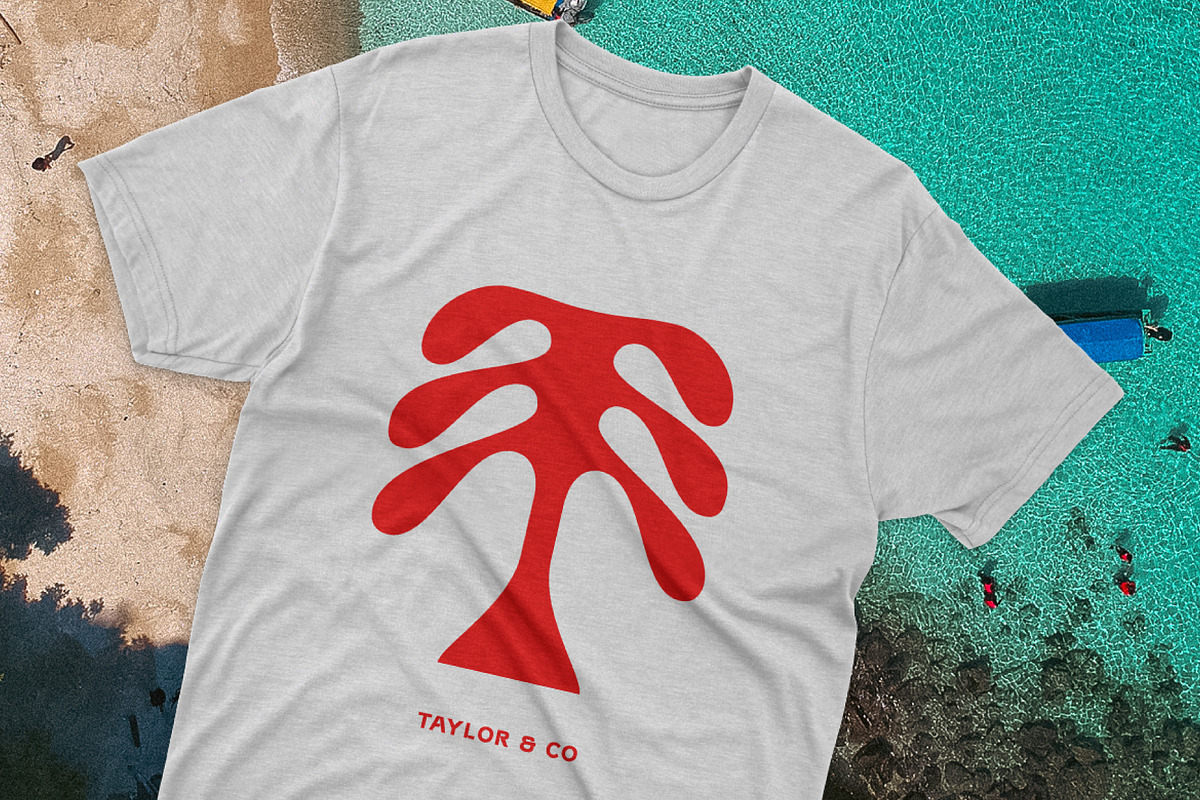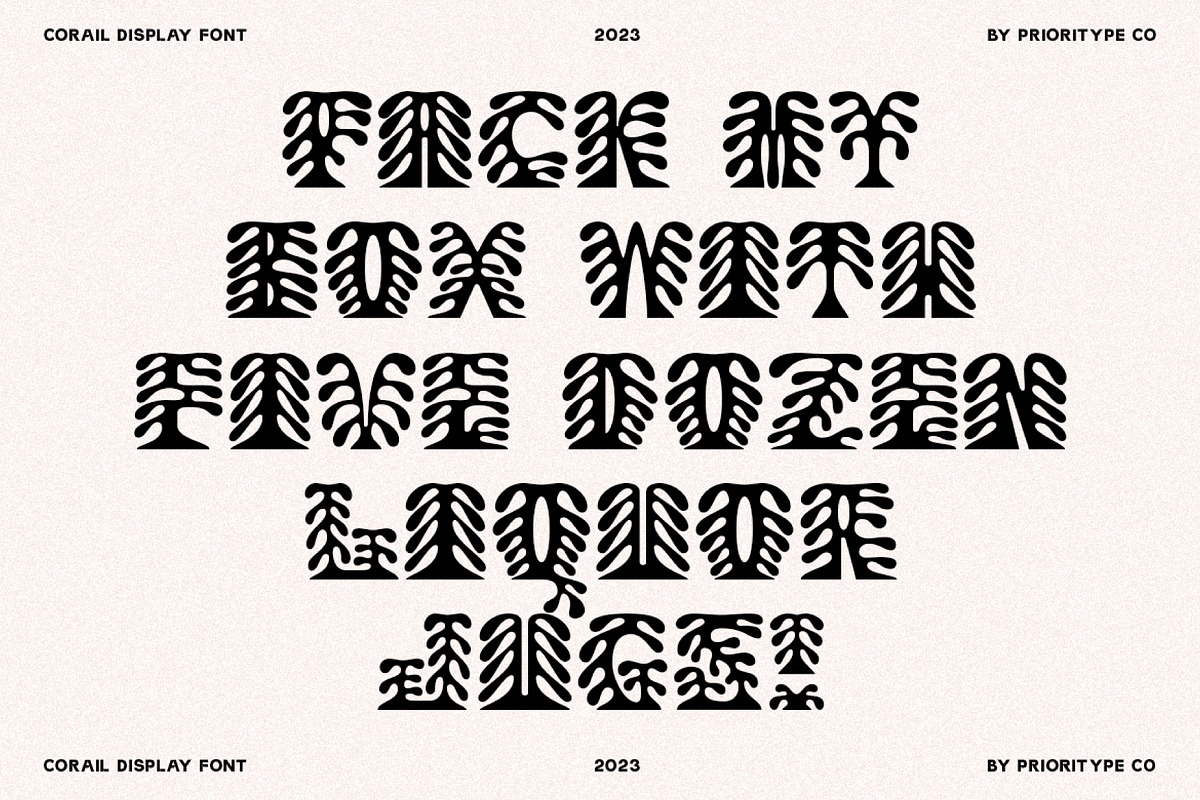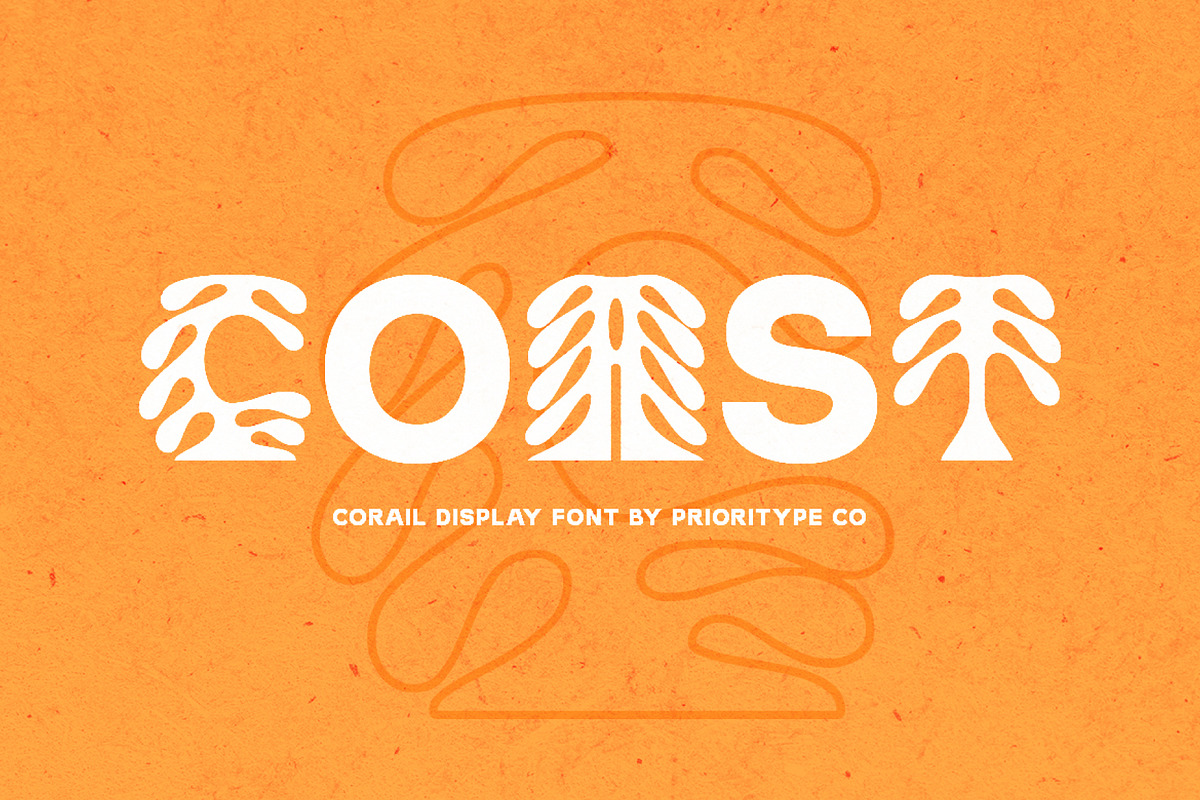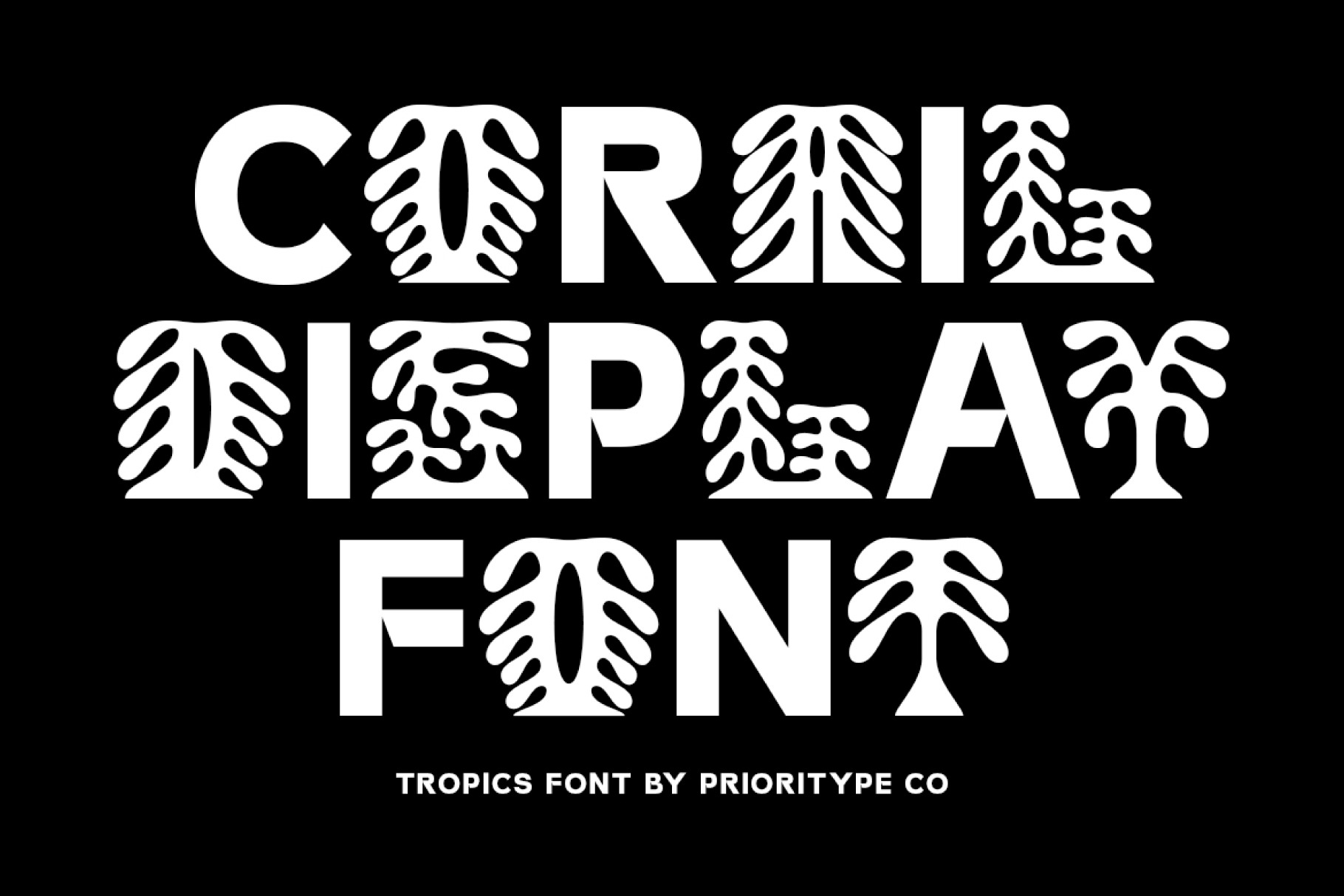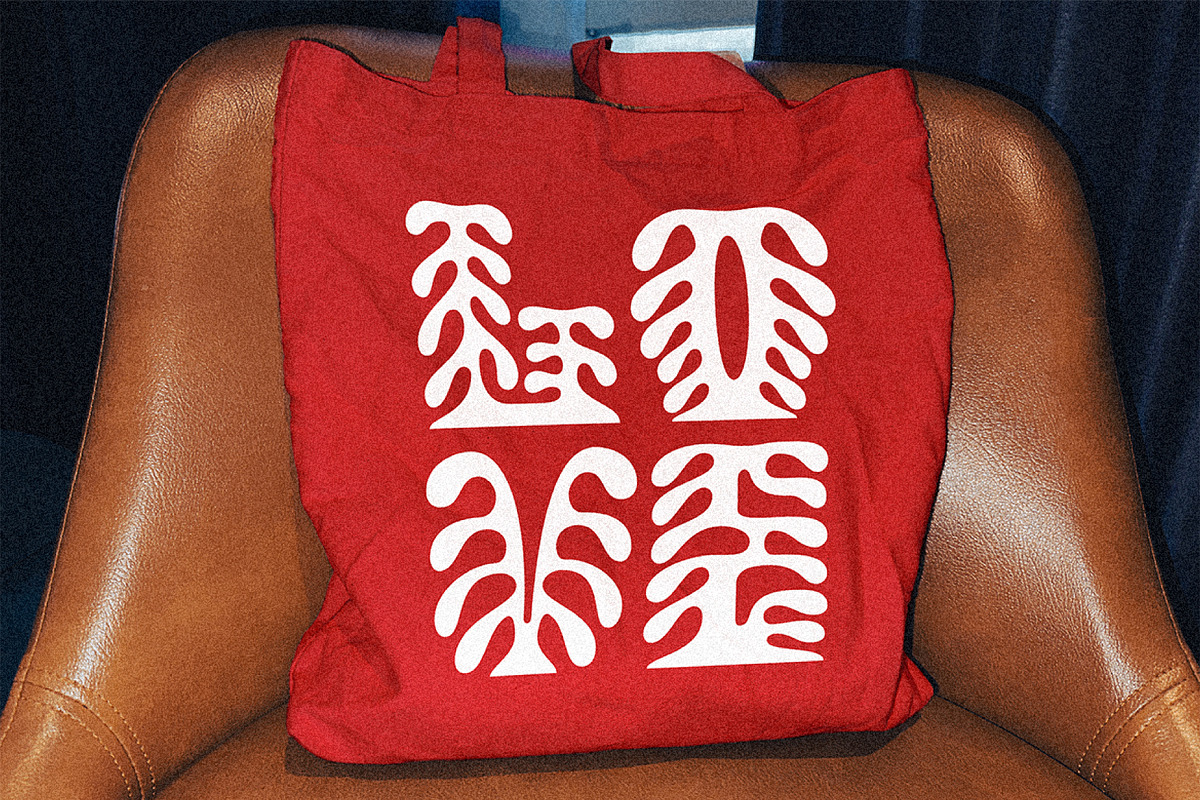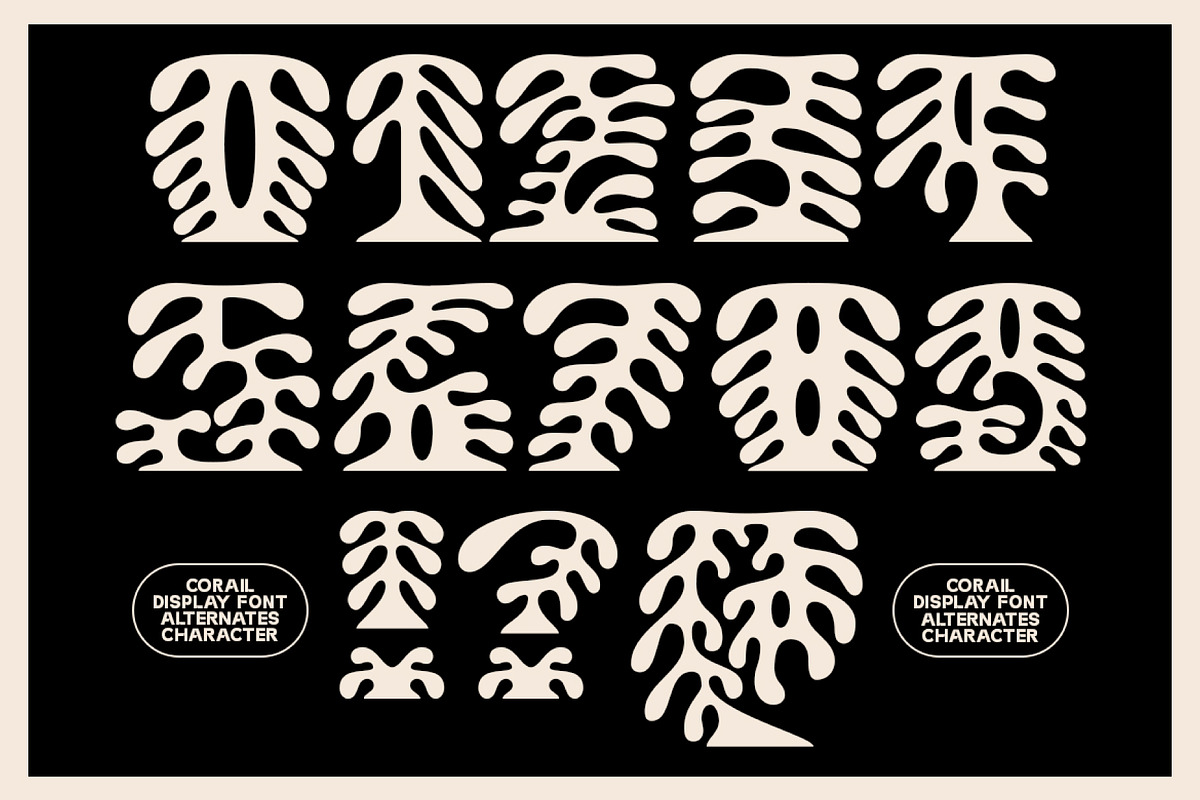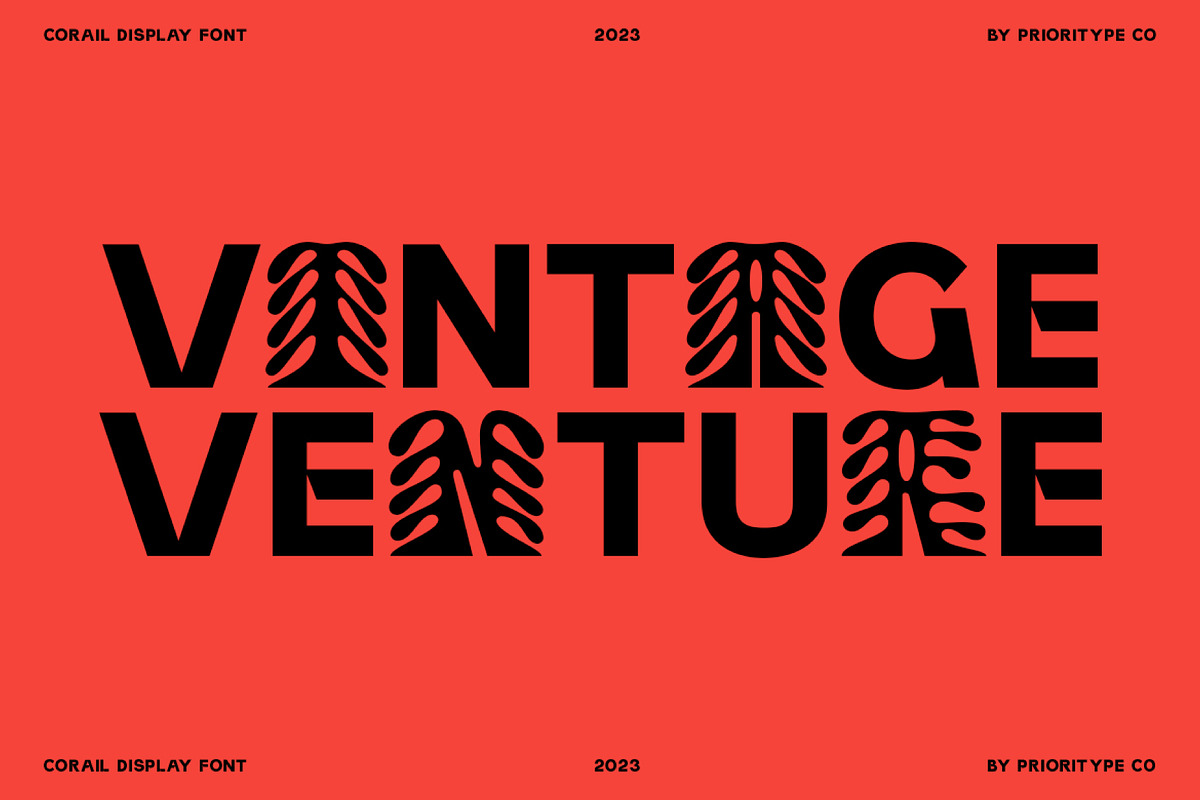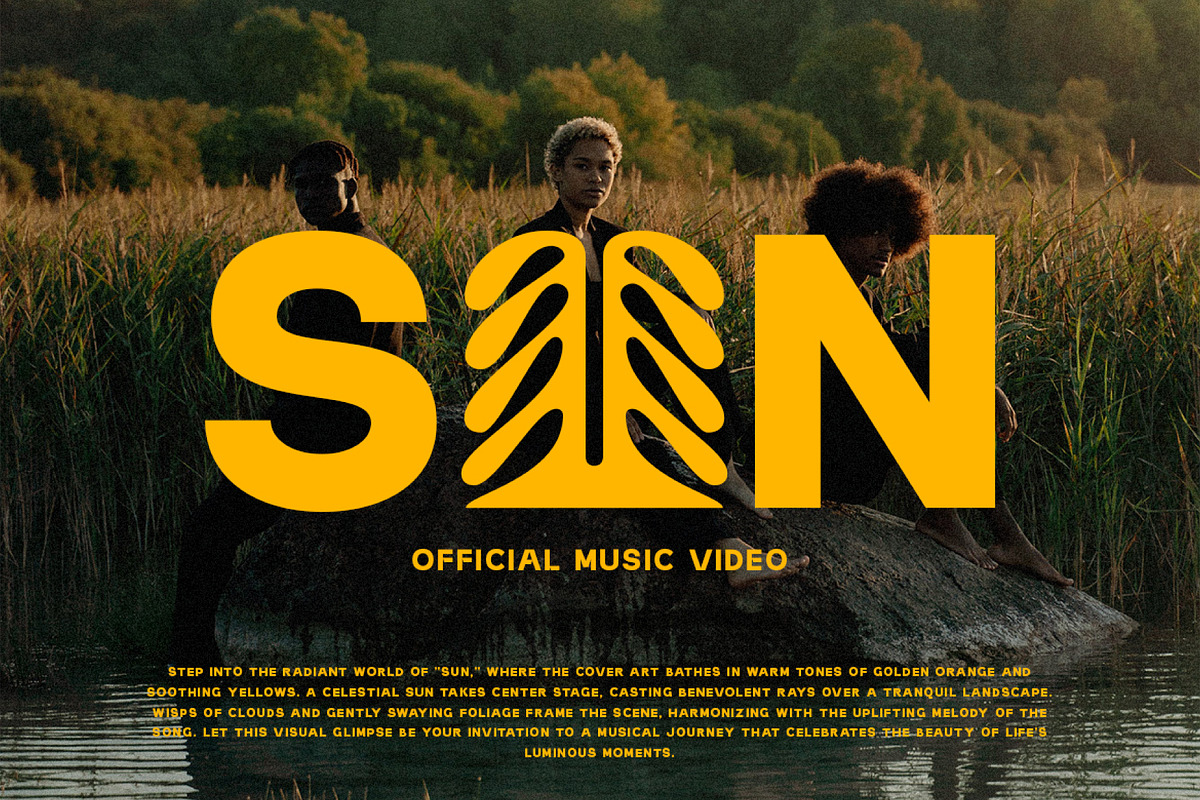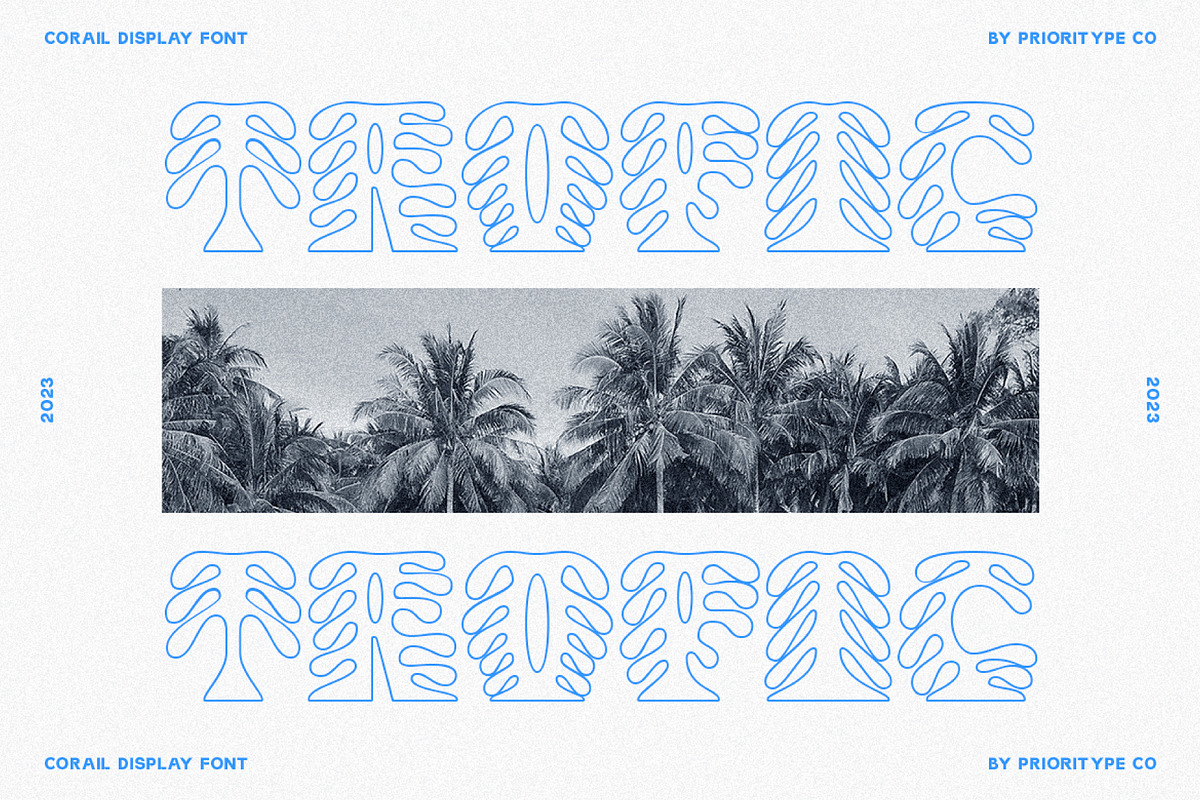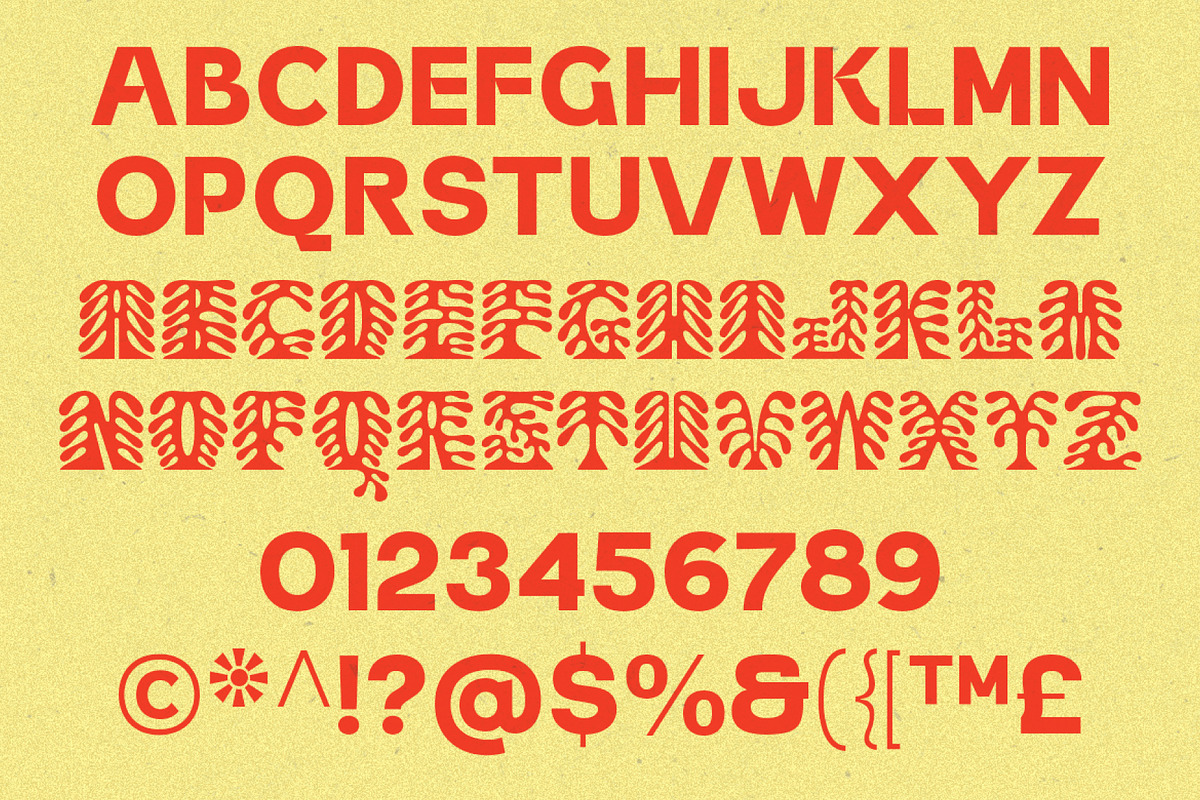
Corail Display Font - Tropics Font
Corail Display Font
The typeface is inspired by the shape of coral and combined with sans serif display letters inside. Two styles available (Regular & Outline). Great for poster designs, merchandise, logos and more. Enjoy your type of Game!
- Features: Uppercase, Lowercase, Numeral, Punctuation & Multilingual.